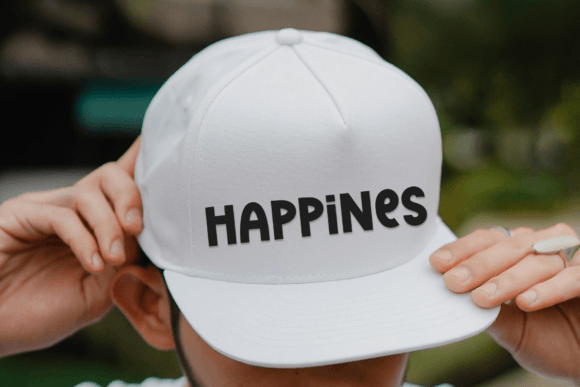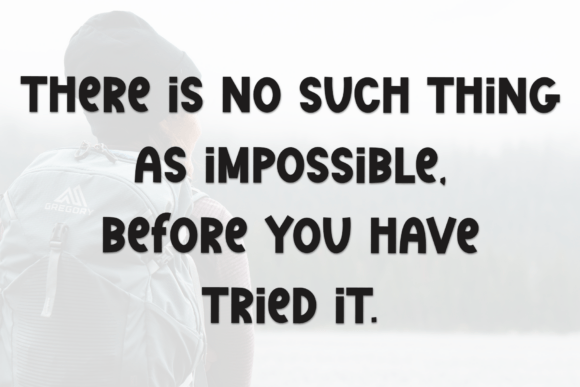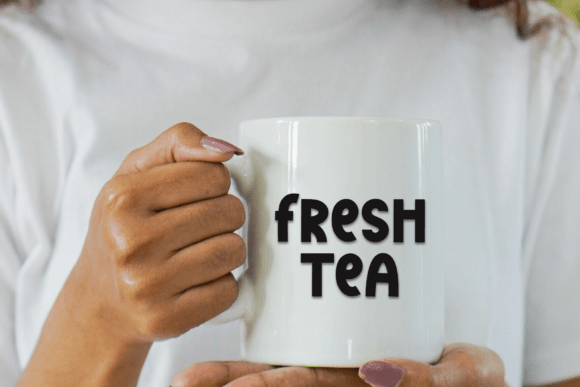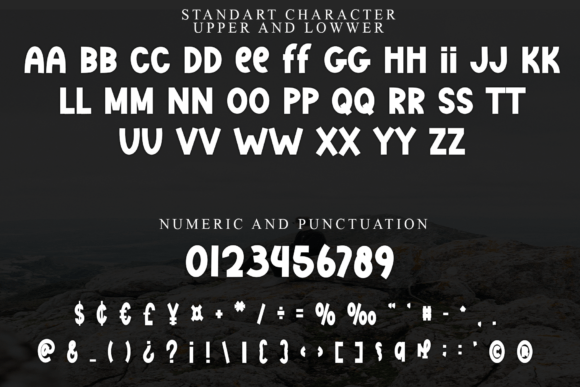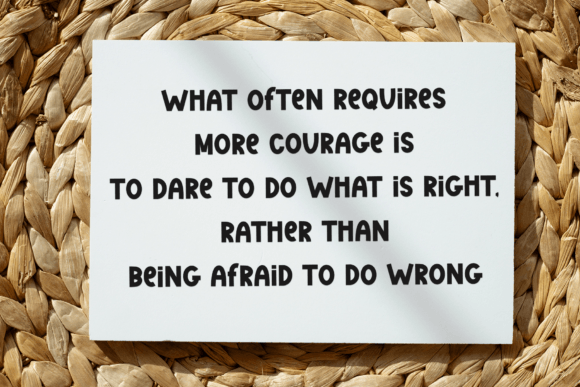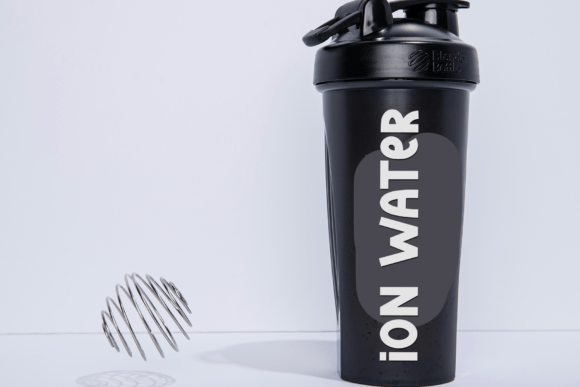
Introduction to Simple Character Font
Have you ever found yourself sitting at your desk, staring at a blank page, trying to come up with the perfect design for your next creative project? The words are flowing, the ideas are bursting, but something’s missing – the perfect font. For designers, finding the right font can make all the difference in bringing a design to life. That’s where the Simple Character Font comes in.
With its smooth, flowing letters and playful style, the Simple Character Font is the perfect addition to any design. Its casual, cheerful vibe adds a personal touch to even the most basic of designs, making it a valuable resource for designers looking to elevate their work.
Whether you’re working on a logo, poster, or invitation, the Simple Character Font is a high-quality design resource that’s sure to impress. Plus, with its transparent background option, you can easily customize it to fit your design needs. And the best part? It’s available for free download, making it an accessible choice for designers of all levels.
Key Features of Simple Character Font
- High-quality, vector-based design for crisp and clear rendering at any size.
- Transparent background, allowing for seamless integration into any design project.
- Includes a wide range of characters, including Latin, Cyrillic, and Greek alphabets, as well as punctuation and symbols.
Honest Review: Simple Character Font
As a designer, I’m always on the lookout for high-quality design resources to elevate my creative projects. Recently, I stumbled upon the Simple Character Font, and I’m excited to share my honest review.
Here’s what works well: ✨ The font is incredibly versatile, with a clean and modern aesthetic that’s perfect for a variety of design applications. I particularly love the transparent background, which makes it easy to layer and manipulate in design software. The font also comes in a range of weights and styles, making it easy to find the perfect fit for your project.
- High-quality design with a clean and modern aesthetic
- Transparent background for easy layering and manipulation
- Range of weights and styles to suit your design needs
Overall, I’m impressed with the Simple Character Font, and I think it’s a great addition to any designer’s toolkit. It’s perfect for personal projects or small design tasks, and its high-quality design and transparent background make it a pleasure to work with.
Tips for Getting the Most Out of Simple Character Font
For the best results, use this font in conjunction with other design elements, such as graphics and images. You can also experiment with different font sizes and colors to create a unique look. Additionally, consider using this font in conjunction with other free downloads to create a cohesive design.
Common Use Cases for Simple Character Font
This font is ideal for use in creative projects, such as invitations, posters, and social media graphics. It’s also great for use in educational materials, such as worksheets and presentations, where a playful and engaging font can help capture students’ attention.